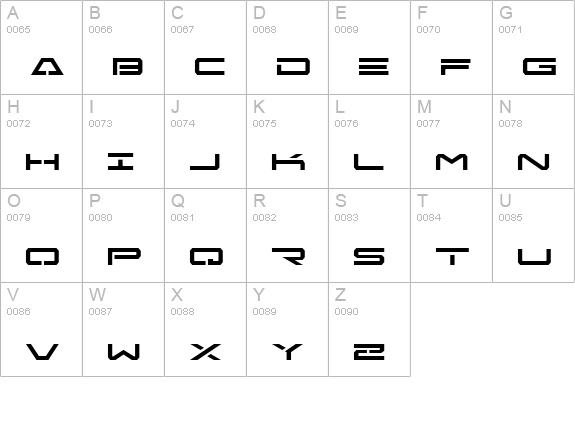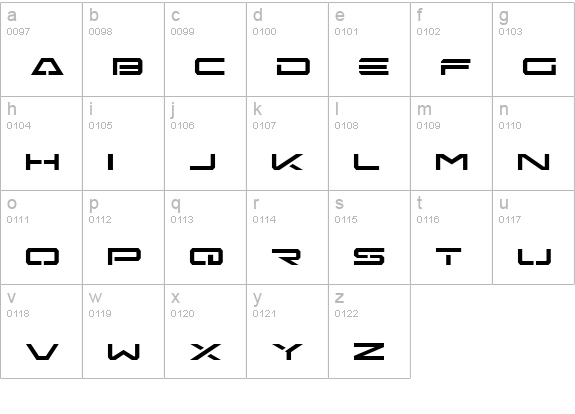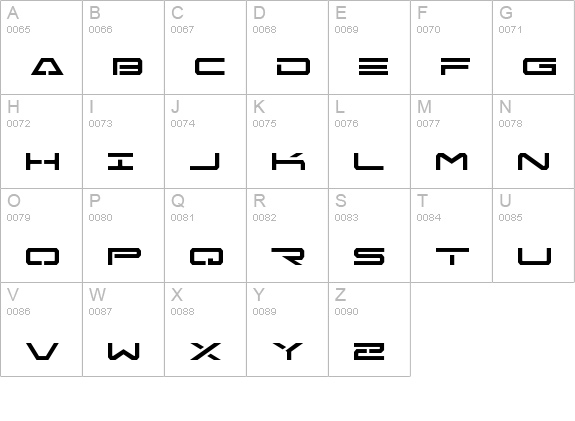
Introducing Free Agent font, a versatile and modern typeface that exudes a sense of freedom and creativity. With its clean lines and bold presence, Free Agent is perfect for a wide range of design projects, from branding to editorial work. This font effortlessly combines elegance with a touch of rebellion, making it a standout choice for those seeking a unique and eye-catching font. What sets Free Agent apart is its accessibility - this font is freely available to download at FontsMarket.com, allowing designers and creatives to easily incorporate it into their projects without any barriers. Whether you're looking to make a statement with your typography or simply add a touch of sophistication to your designs, Free Agent is the perfect choice. Download it today and let your creativity run wild with this stunning and versatile font.